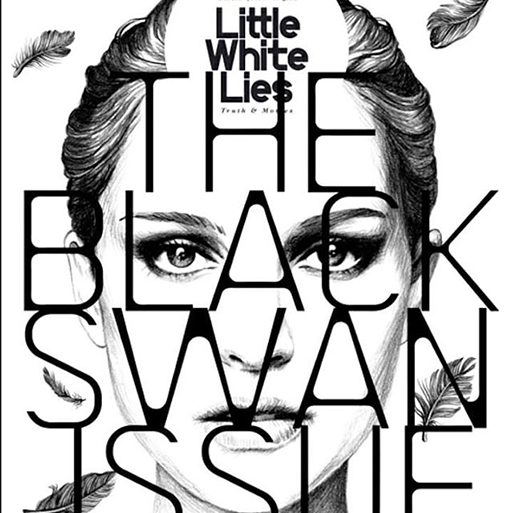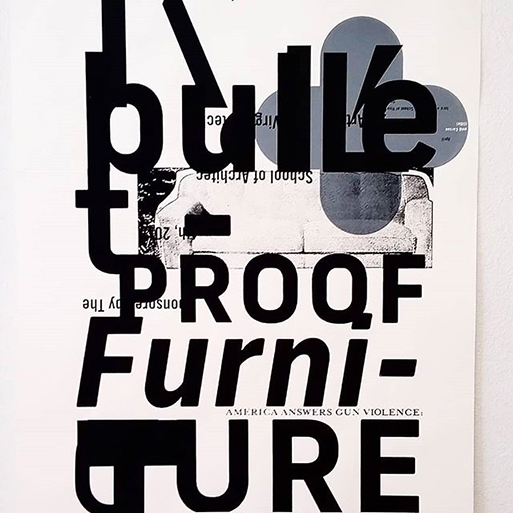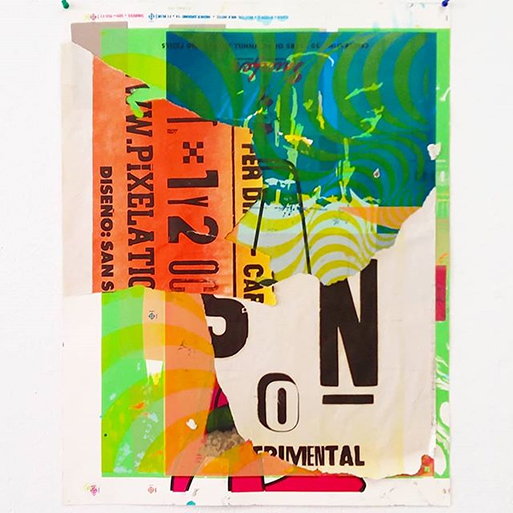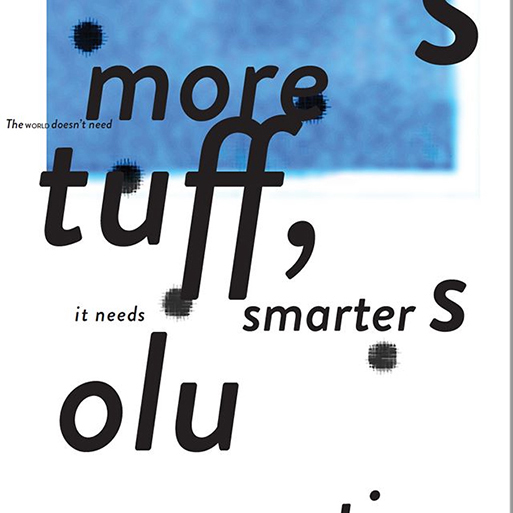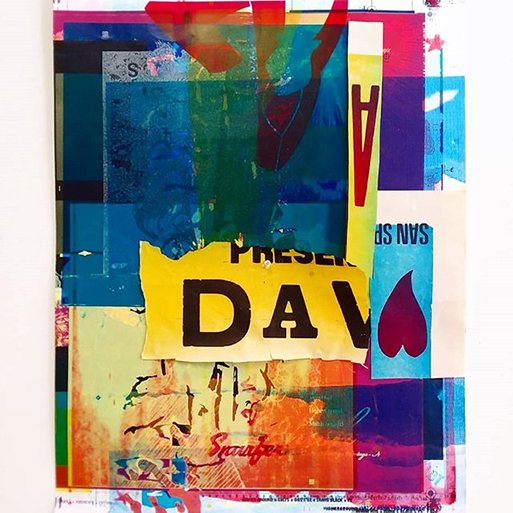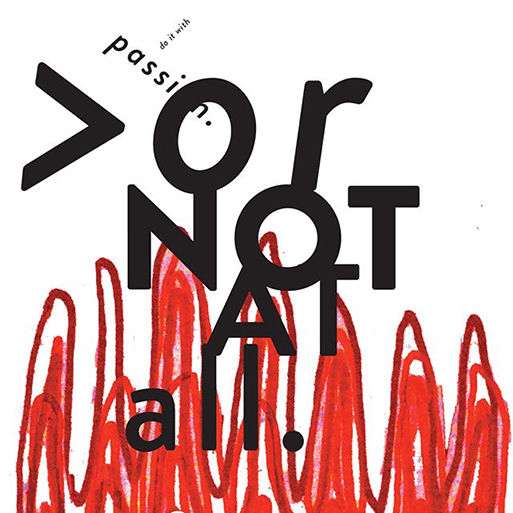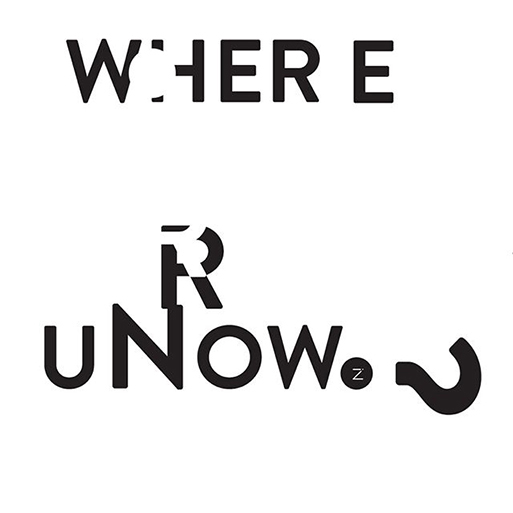
David Carson, (born September 8, 1955, Corpus Christi, Texas, U.S.), is the American graphic designer who literally revolutionized our very own visual language when his unconventional style crashed like a big wave of inspiration back in the 90s.
"Carson came to graphic design relatively late in life. He was a competitive surfer—ranked eighth in the world—and a California high-school teacher when, at age 26, he enrolled in a two-week commercial design class. Discovering a new calling, he briefly enrolled at a commercial art school before working as a designer at a small surfer magazine, Self and Musician. He then spent four years as a part-time designer for the magazine Transworld Skateboarding, which enabled him to experiment. His characteristic chaotic spreads with overlapped photos and mixed and altered type fonts drew both admirers and detractors. Photographer Albert Watson, for example, declared, “He uses type the way a painter uses paint, to create emotion, to express ideas.” Others felt that the fractured presentation obscured the message it carried" notes Britanicca.
"In 1989 Carson became art director at the magazine Beach Culture. Although he produced only six issues before the journal folded, his work there earned him more than 150 design awards. By that time, Carson’s work had caught the eye of Marvin Scott Jarrett, publisher of the alternative-music magazine Ray Gun, and he hired Carson as art director in 1992. Over the next three years, with the help of Carson’s radical design vision, Ray Gun’s circulation tripled. Because Carson’s work clearly appealed to a youthful readership, corporations such as Nike and Levi Strauss & Co. commissioned him to design print ads, and he also began directing television commercials. After leaving Ray Gun in 1995, Carson established David Carson Design. The firm was instantly successful and attracted well-known, wealthy corporate clients. In 1995 Carson produced The End of Print: The Graphic Design of David Carson (revised edition issued in 2000 as The End of Print: The Grafik Design of David Carson), the first comprehensive collection of his distinctive graphic imagery. This was followed by the boldly experimental books 2nd Sight (1997), Fotografiks (1999), and Trek (2003). In 2014 Carson was awarded an AIGA Medal".